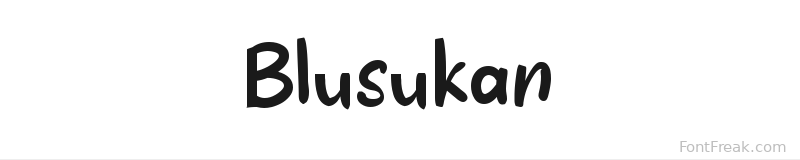
Blusukan
About Blusukan
Blusukan is a striking display font designed by Wahyu Eka Prasetya, categorized as a decorative typeface. This font showcases a playful and modern aesthetic, characterized by its bold strokes and friendly curves. The overall design features a medium stroke weight with minimal contrast, giving it a cohesive and approachable appearance. The spacing is generous, allowing for easy readability while maintaining a lively and engaging feel. Decorative elements, such as rounded edges and unique character shapes, contribute to its charm, making it a standout choice for various creative projects.
The Blusukan font is ideal for a range of applications, including eye-catching wedding invitations that require a touch of whimsy, vibrant movie posters that demand attention, and trendy restaurant menus that convey a casual yet stylish vibe. Additionally, it works well for promotional materials for small businesses, helping to create a memorable brand identity. Content creators will also find this font appealing for social media graphics, adding a distinctive flair to their visuals.
Targeting graphic designers, small business owners, and content creators alike, Blusukan offers a versatile and engaging option for those looking to elevate their projects. The font’s unique character and playful style make it suitable for both formal and informal contexts, allowing it to adapt seamlessly to various themes and concepts.
What sets the Blusukan font apart is its ability to combine creativity with readability, making it not only visually appealing but also functional. The Blusukan font free download opens up opportunities for anyone seeking to enhance their designs with a distinctive typeface that embodies modernity and playfulness. Whether for personal or professional use, this font is sure to leave a lasting impression.